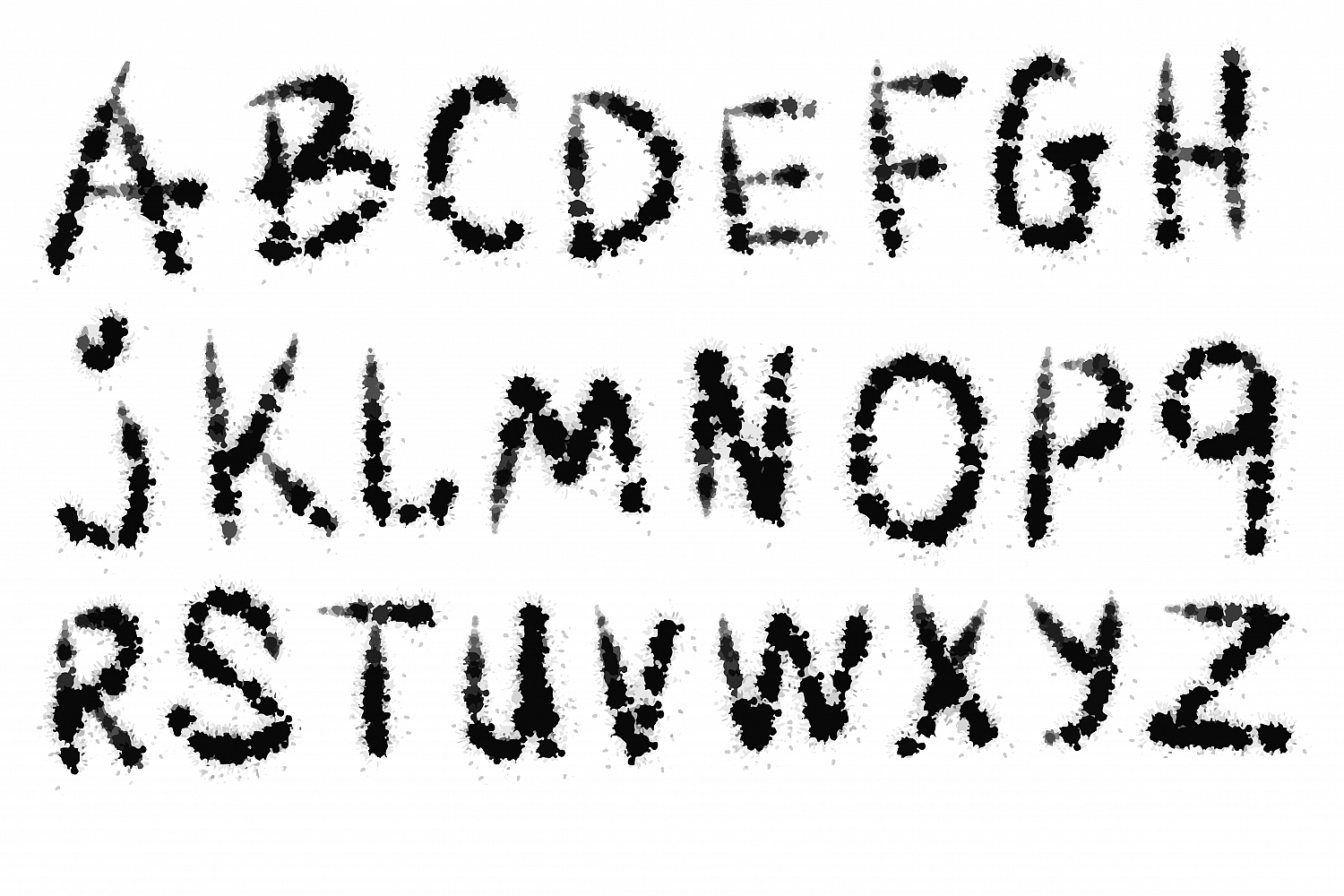
Blotch vector font.
blotch vector alphabet can be used for wallpaper, pattern fills, web page background, surface textures. Perfect for making wedding invitations, birthday cards, scrapbooking, party decorations,invitation cards, party favor tags, label stickers, stationary, gift wrap, packaging, baby clothes, buttons, pendants, holiday gifts, print on fabrics and so much more...